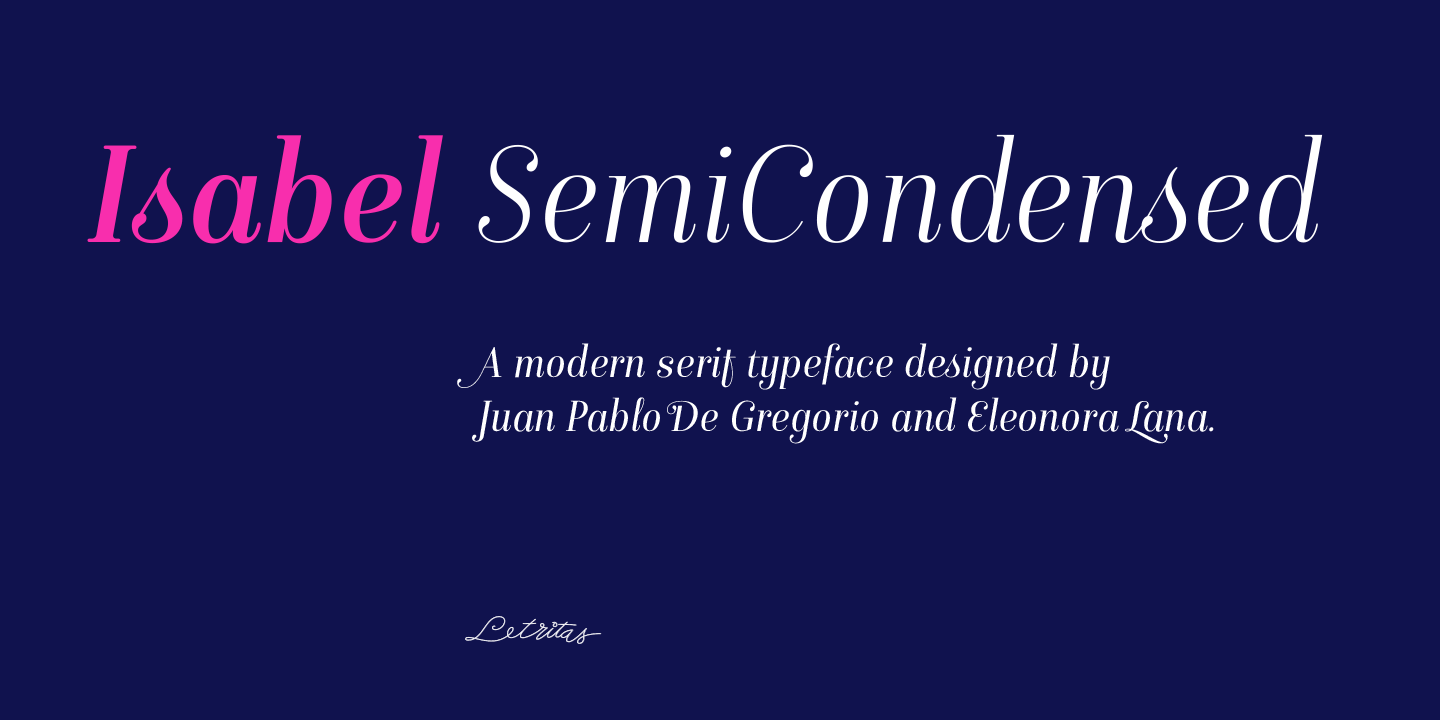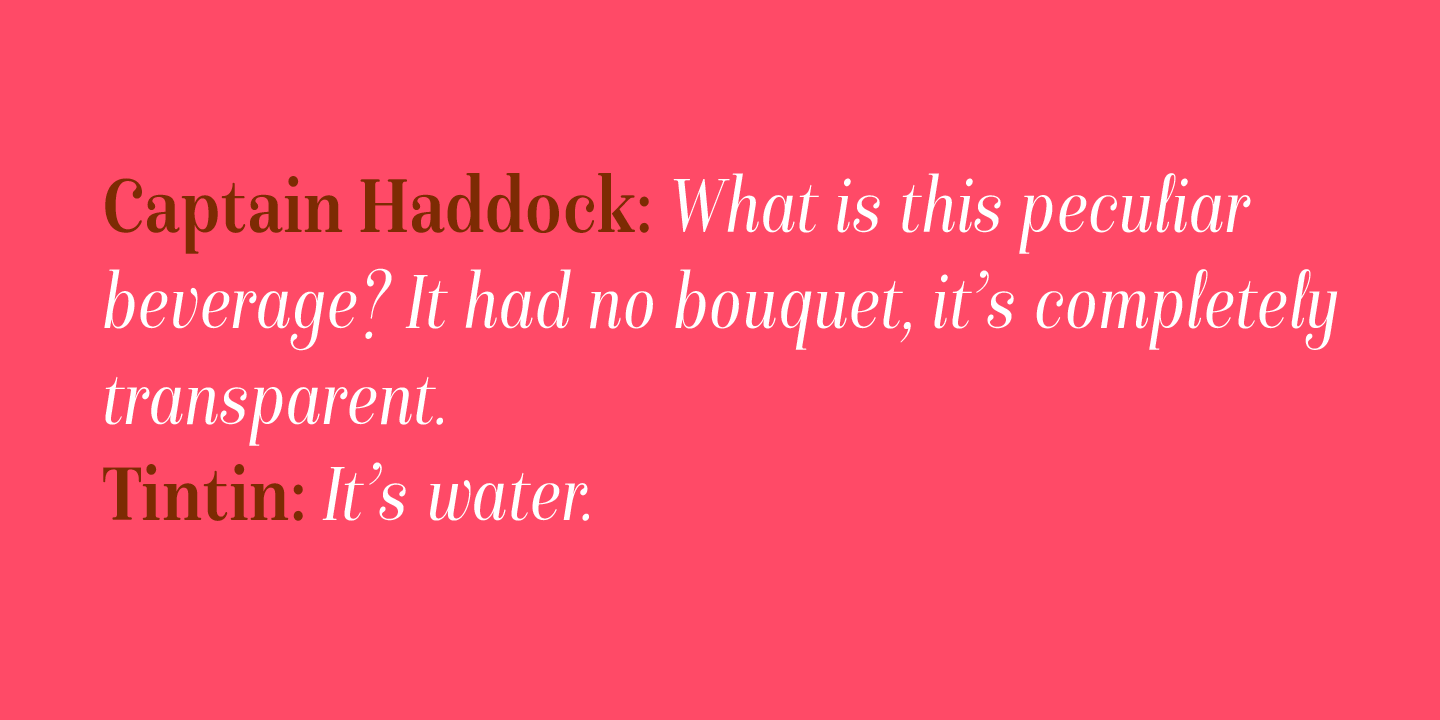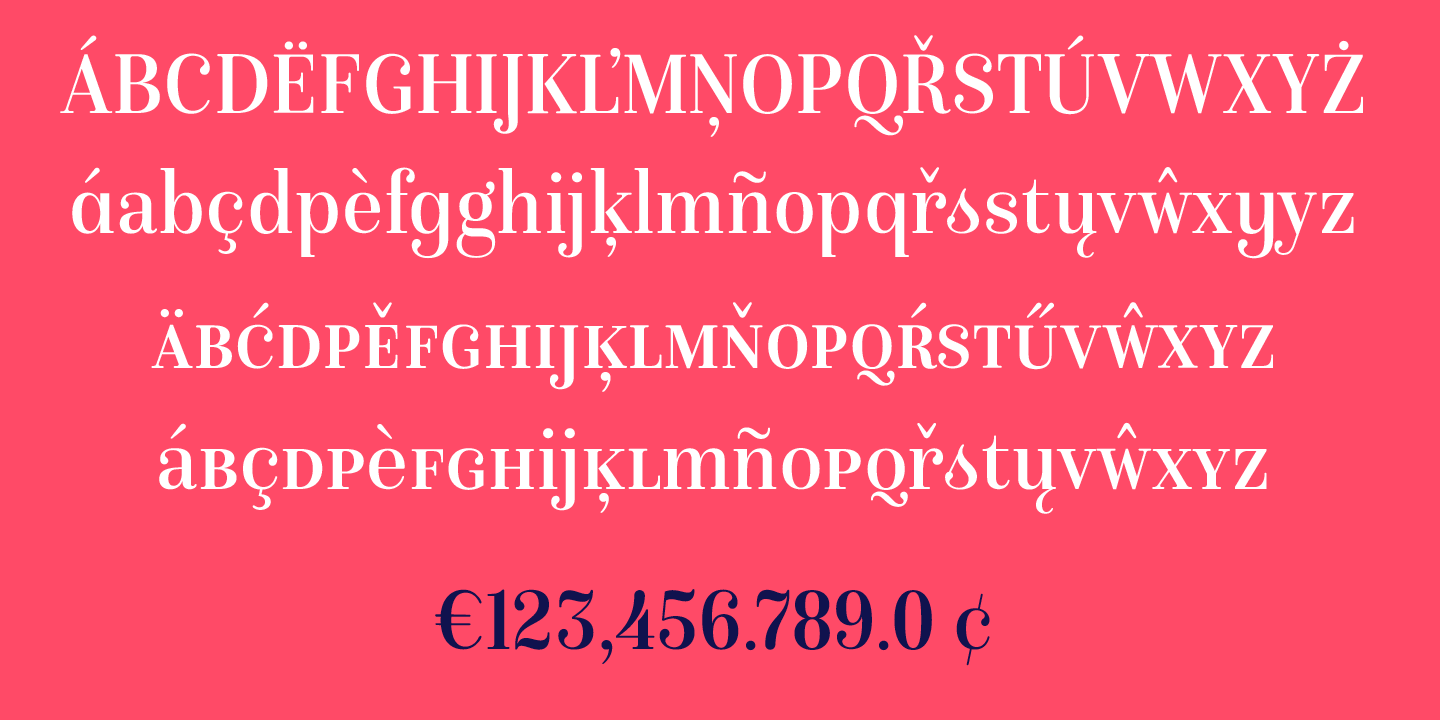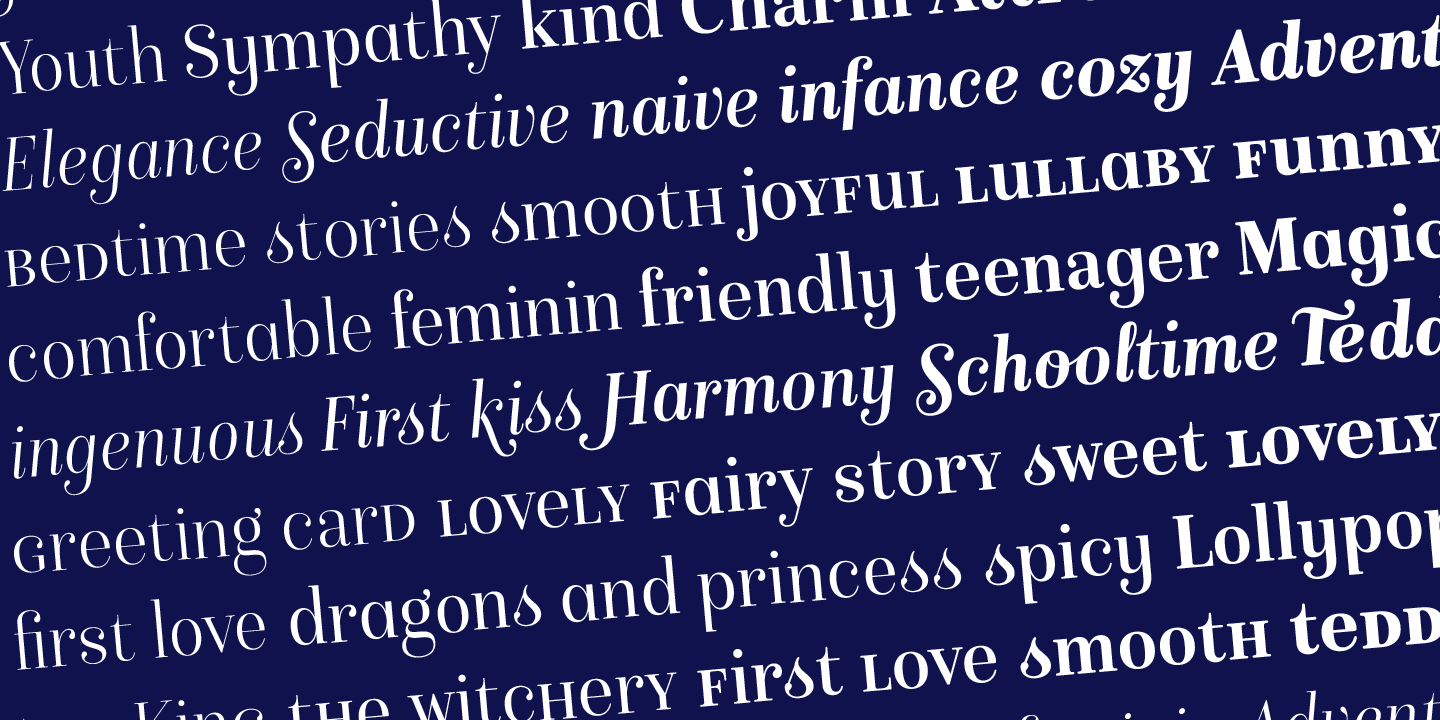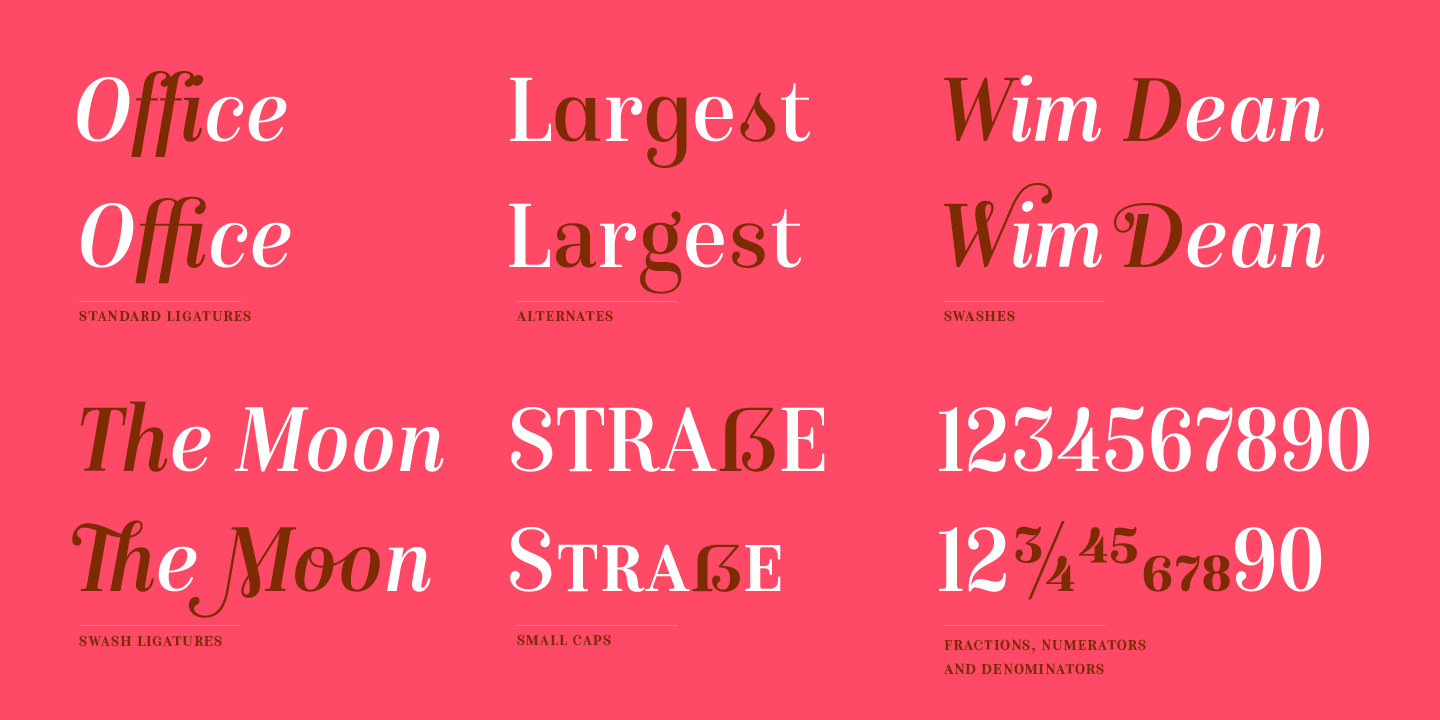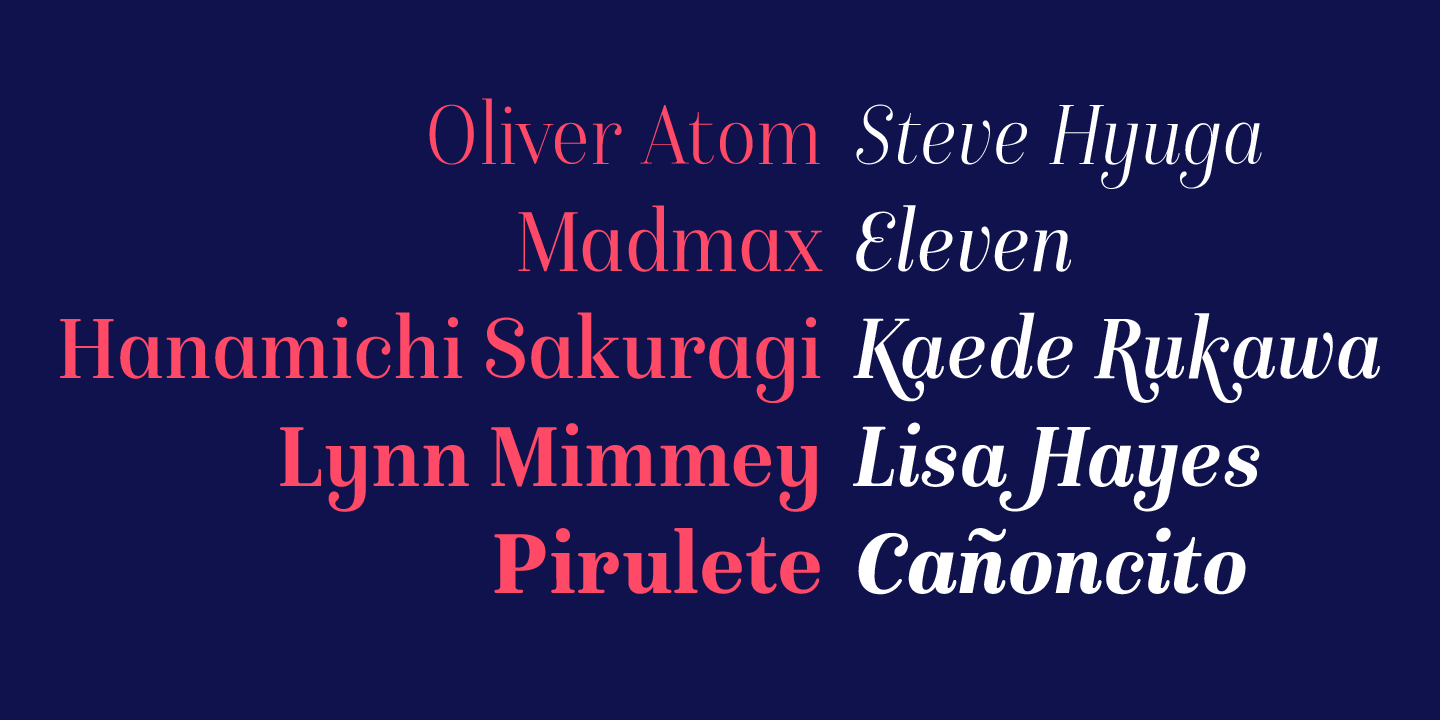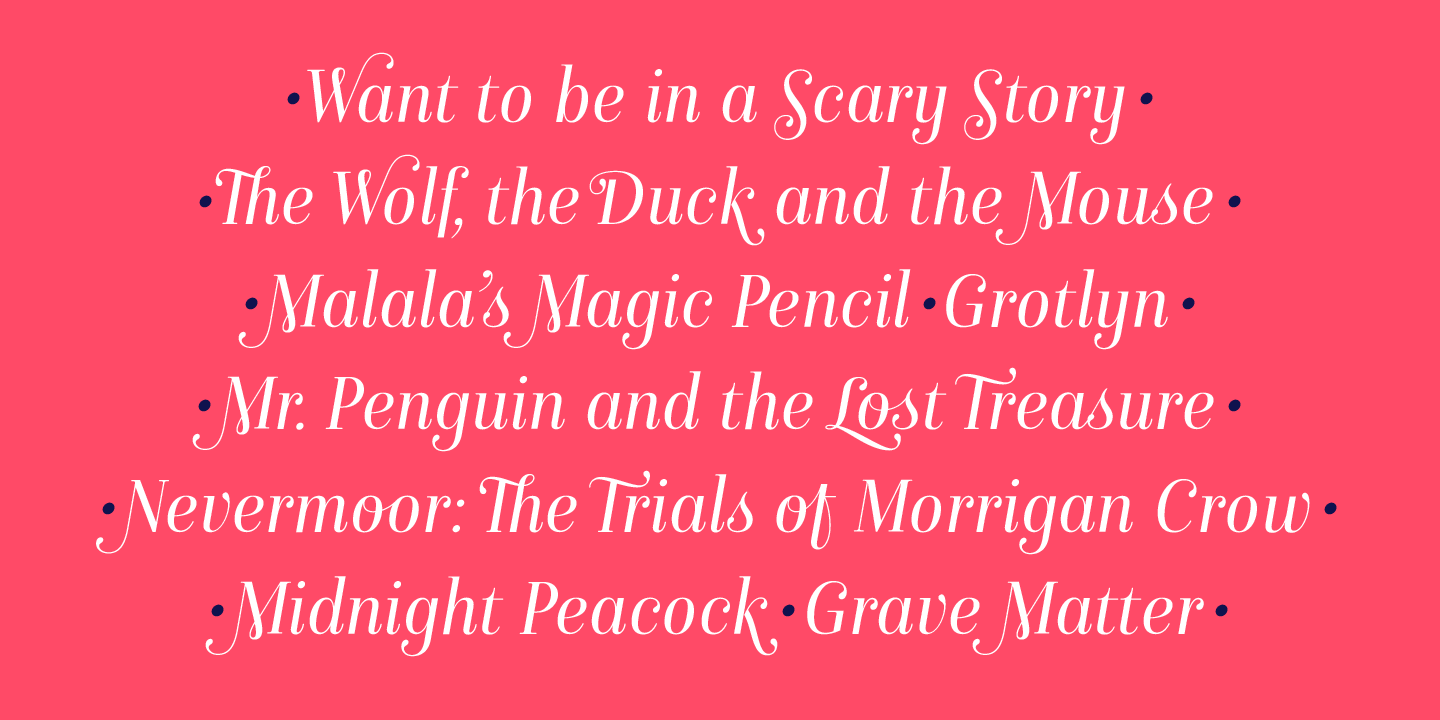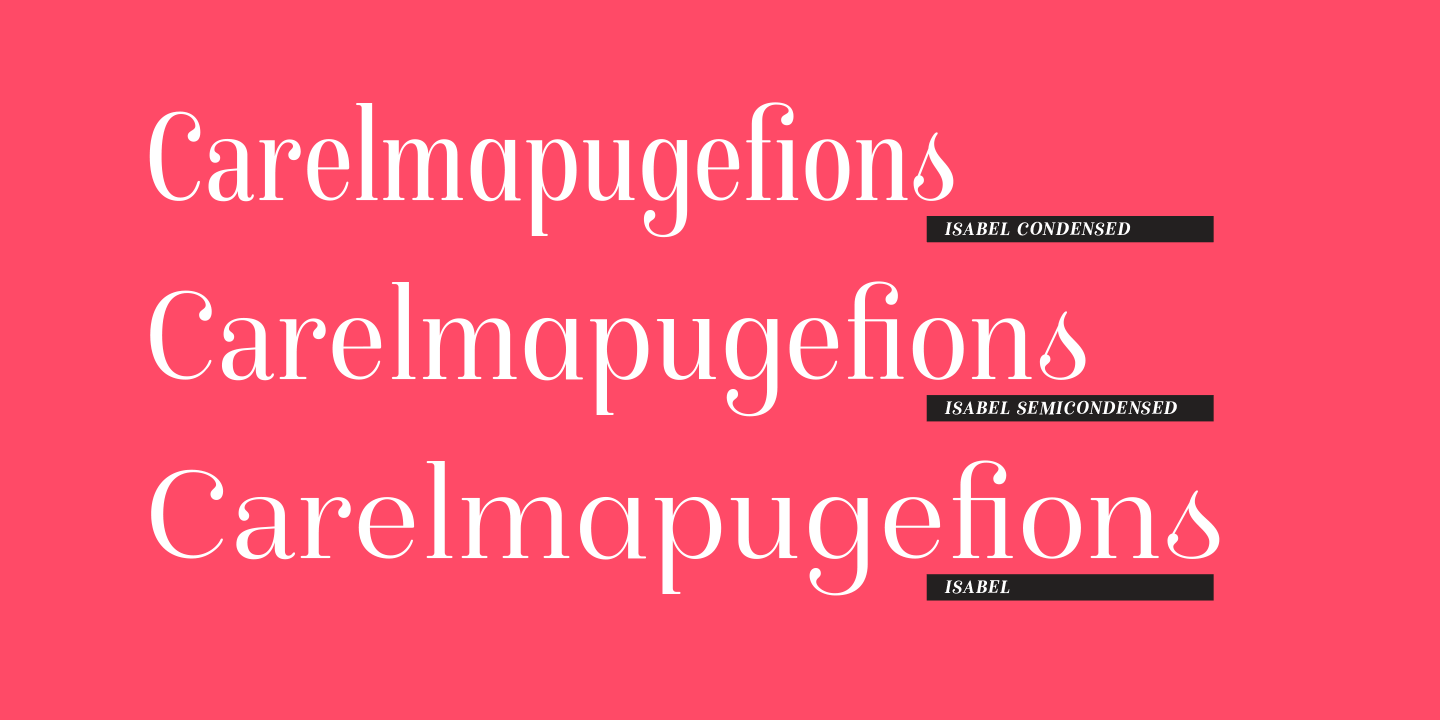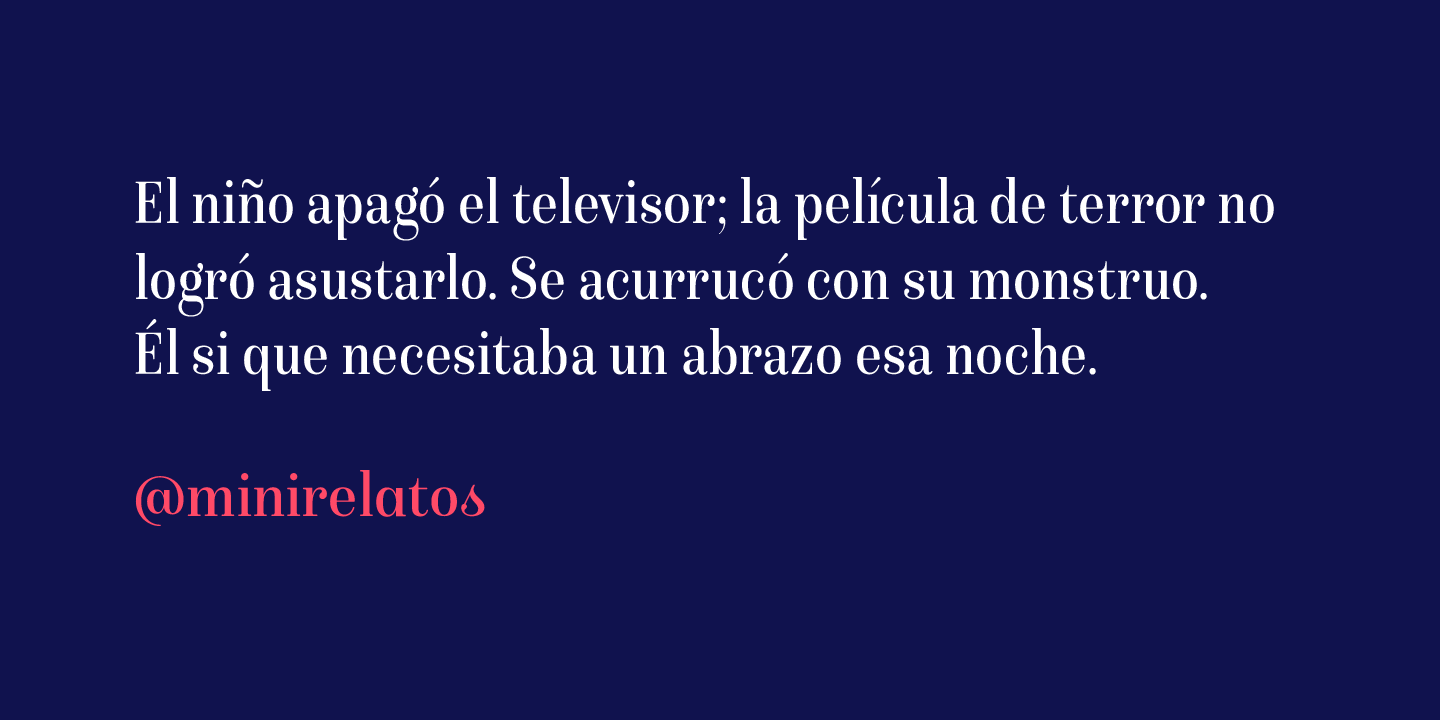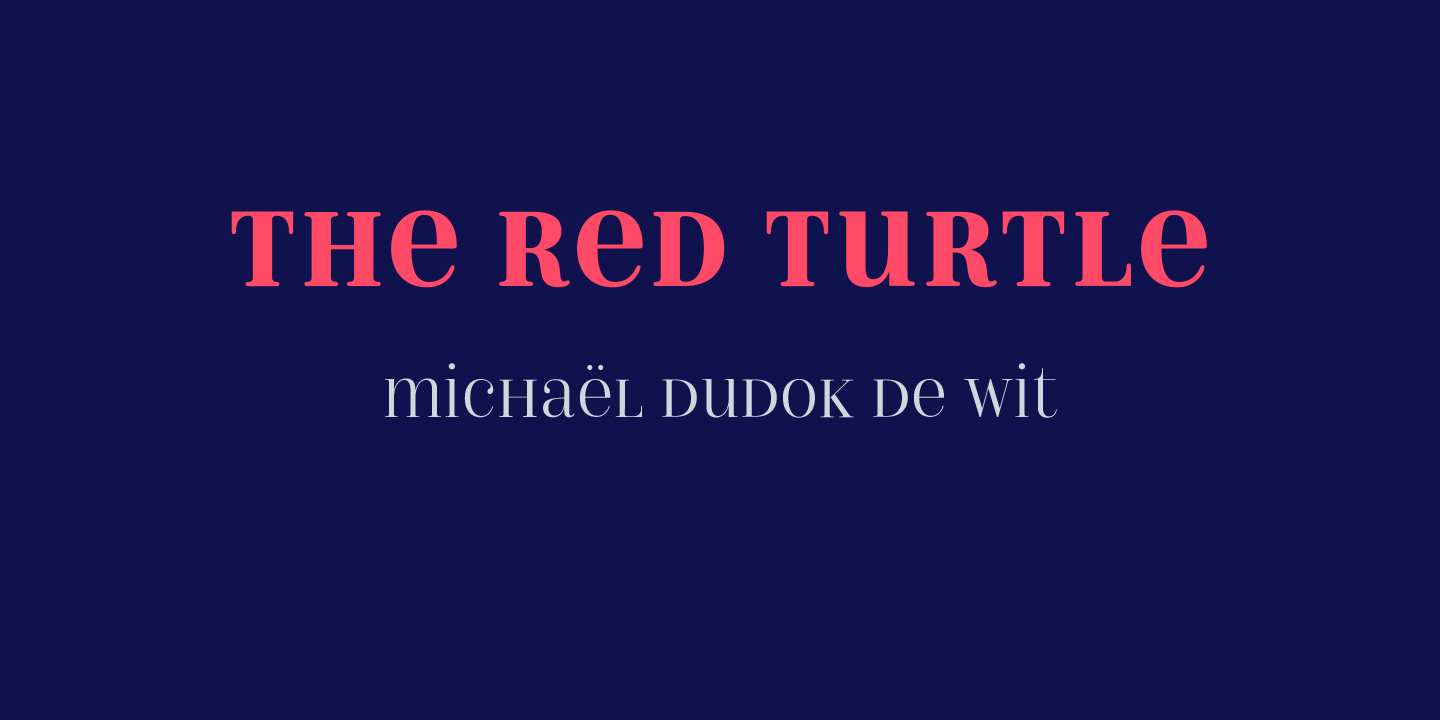
Isabel SemiCondensed
Buy NowIsabel SemiCondensed, together with Isabel condensed and Isabel was made out of necessity to create a new font for children and teenagers, that could be enough friendly and versatile for text in words or even easy-to-read long texts.
The purpose of Isabel is to combine all the nice and friendly features of the simple letters that the teachers teach to the pupils at the primary school, as they starting to learn to read, together with the normal editorial fonts we read every day. In this way, it generates a very joyful serif font, or even friendly font, with some conservative aspects. In other words, Isabel is a font that, despite being a “classic features” typography, is proud to show its innocent and ingenuous elements, this gives to the font a new point of view.
The family is composed of 3 parts: the regular version, the italic version, and the unicase version.
Each one of them has 5 weights. The italic version has 825 characters; the regular and unicase have 739 and are composed of 220 latin languages, plus Cyrillic.